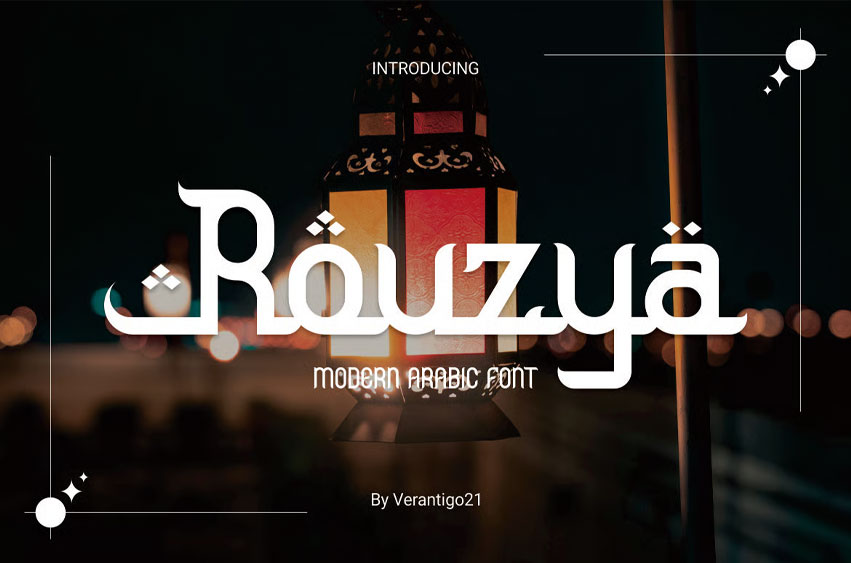
Rouzya Font is a bold and modern condensed typeface. With its strong, impactful lines and unique cut details, Rouzya is perfect for creating eye-catching headlines, logos, and posters. Its bold, blocky letters convey strength and confidence, making it ideal for projects that need to stand out and leave a lasting impression.
Whether you’re designing for advertising, fashion, or creative branding, Rouzya robust, condensed style provides a versatile solution for enhancing visual impact.